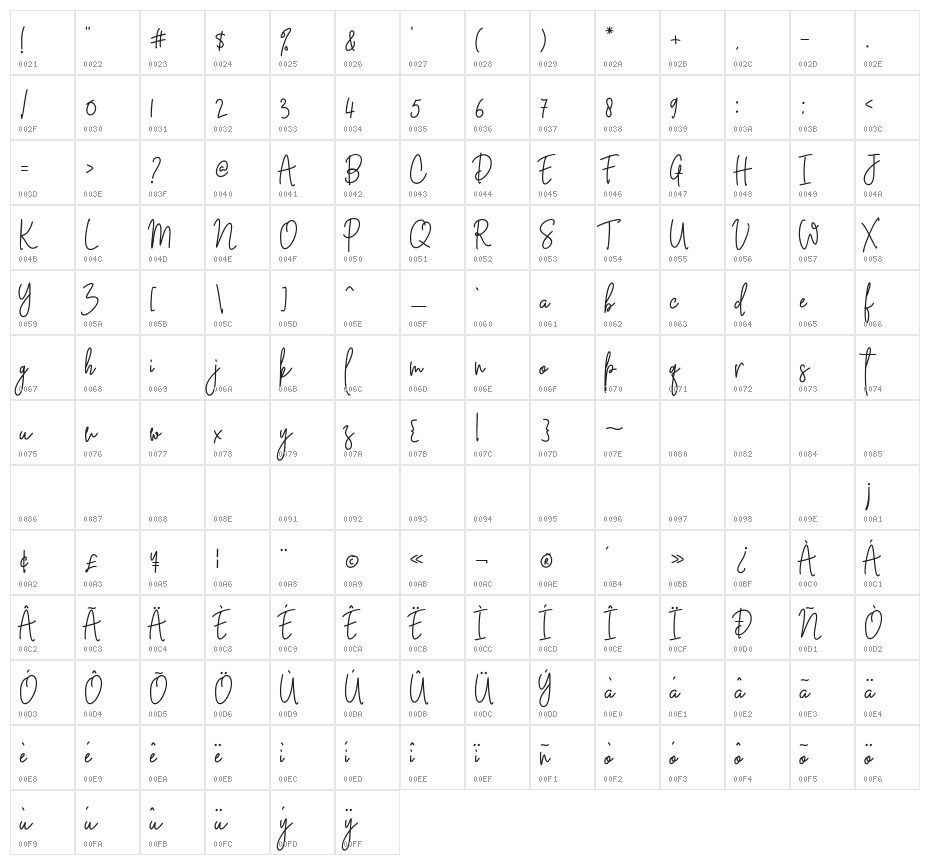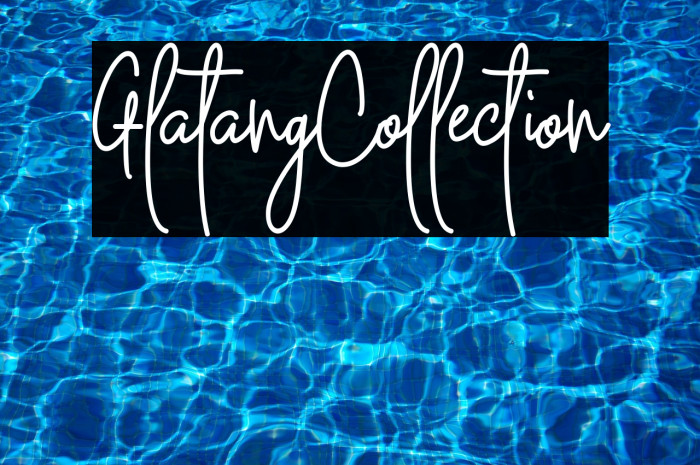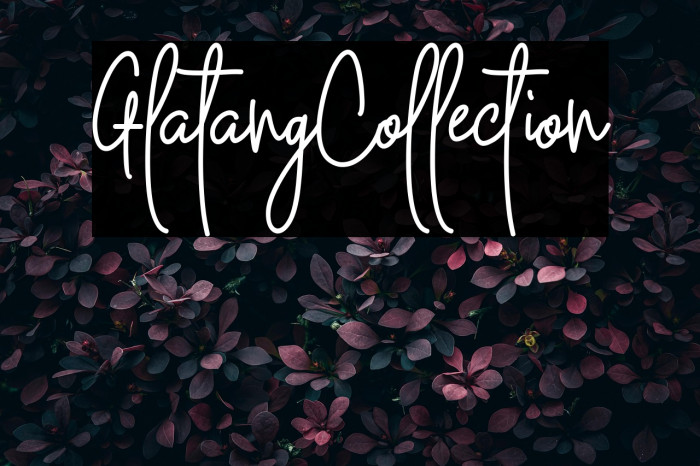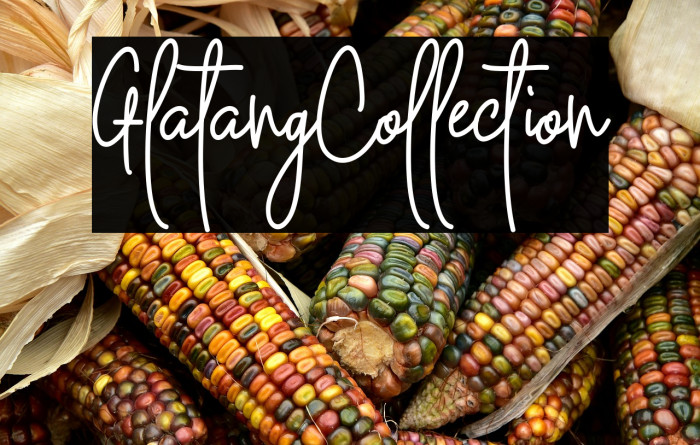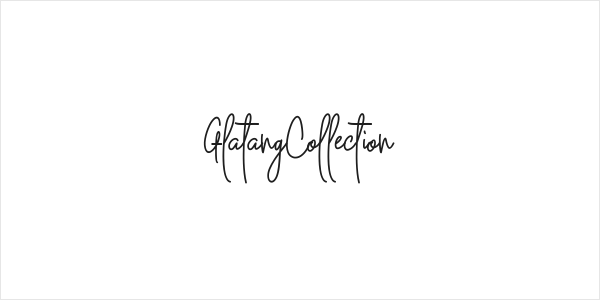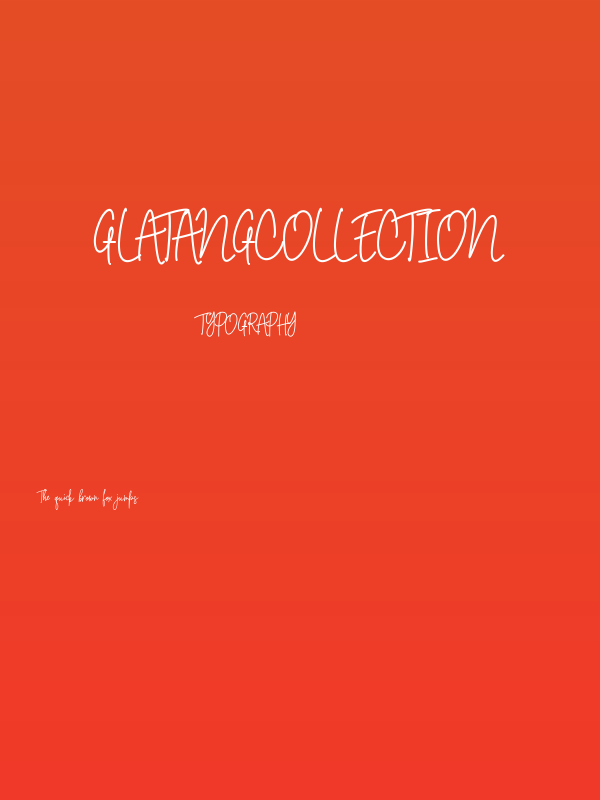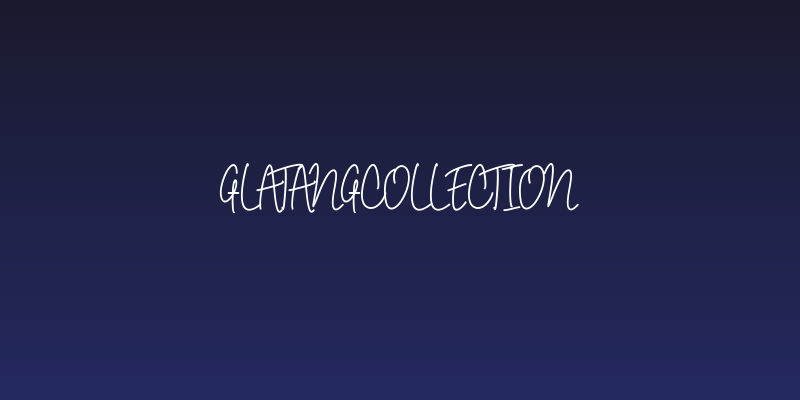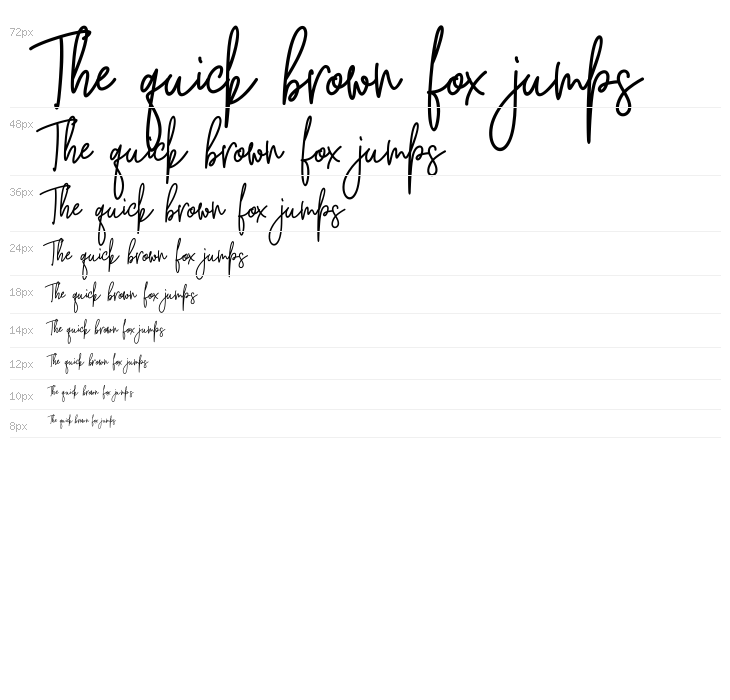
GlatangCollection Font
GlatangCollection Description
This font features a lively and flowing handwritten style, characterized by its elegant and slightly irregular strokes. The uppercase letters are tall and narrow, with a playful looped design that adds a whimsical touch. The lowercase letters maintain a consistent flow, with some characters featuring distinctive loops and swirls that enhance its handwritten appeal. The numerals are clear and maintain the same playful style, making them easily readable. Special characters are creatively integrated, maintaining the overall aesthetic. This font is perfect for projects that require a personal and artistic touch, such as invitations, greeting cards, and creative branding.